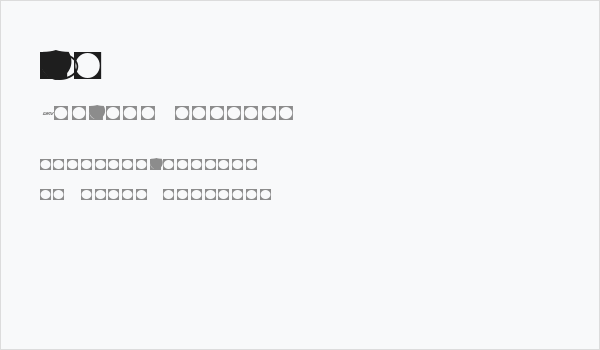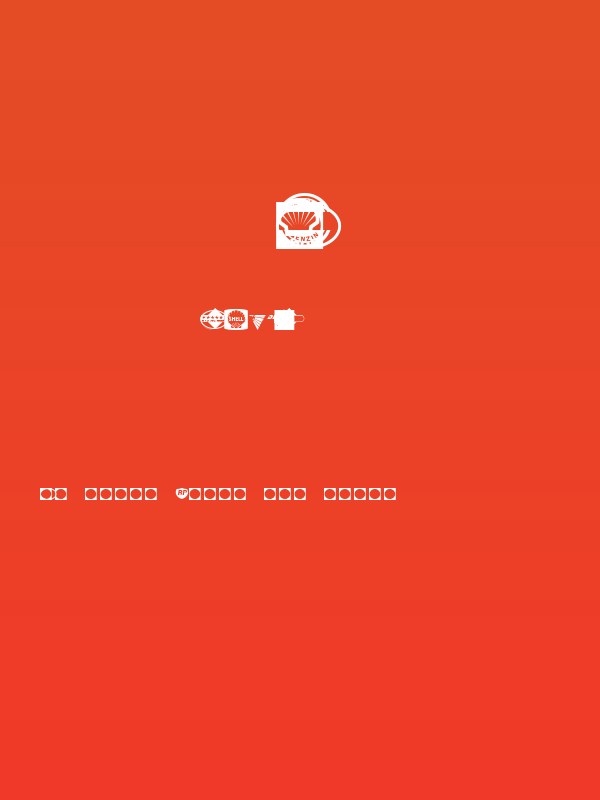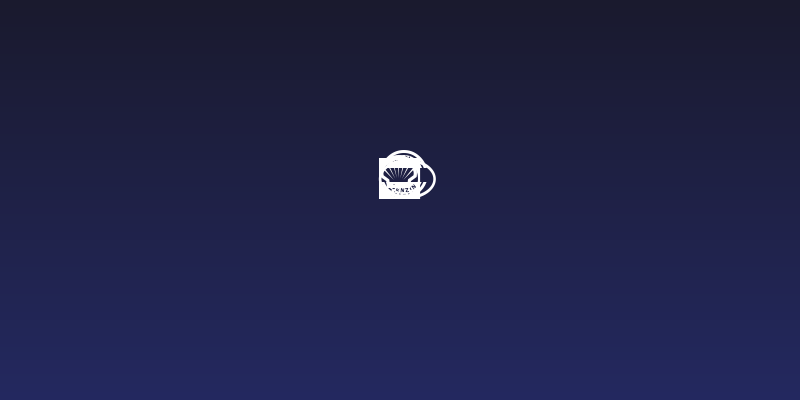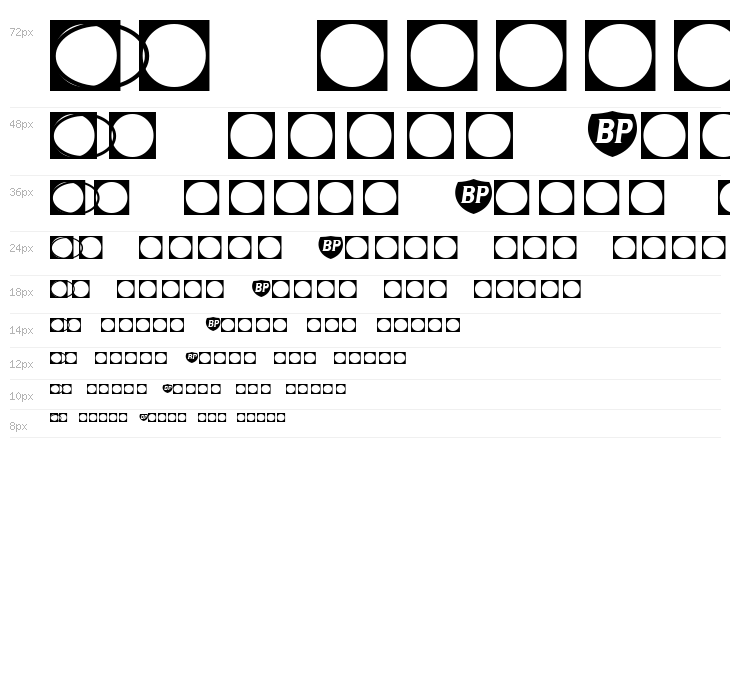
Tank Font
Tank Description
This image contains a collection of vintage fuel and oil company logos, along with a geometric dingbat or symbol font consisting of shield and circle-in-square glyphs. The symbols are simple, bold, and highly geometric, with no traditional alphabetic or numeric characters present.
Overall StyleDecorative, Retro, Geometric
Use CaseIcons, signage, decorative elements, branding accents.
Proposed ProjectsBranding, signage, infographics, retro-themed designs, icon sets.